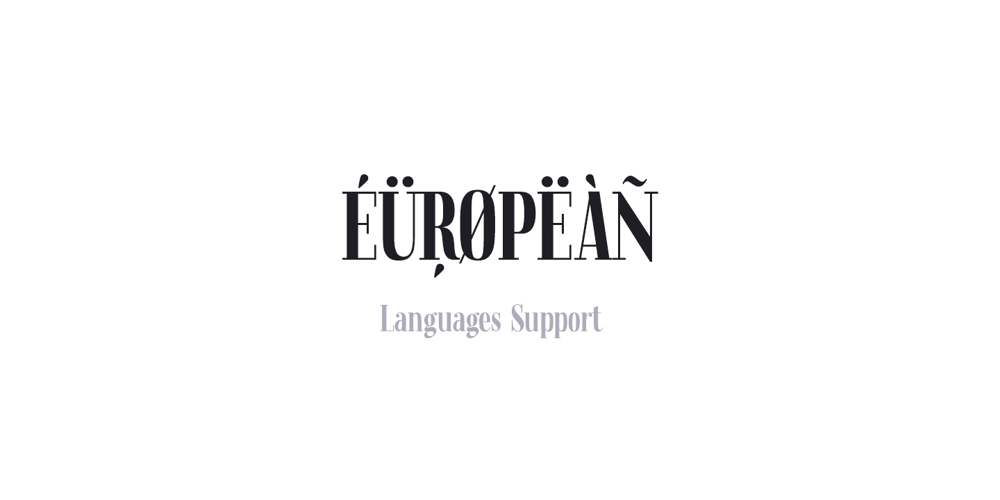
Fjørd Font Family was designed by Anton Didenko and published by Kavoon. Fjørd contains 1 styles and family package options. Fjørd Serif is a modern classic serif typeface with an individual approach in every single letter. Fjørd will perfect for many projects: fashion, magazines, logo, branding, photography, wedding invitations, quotes, blog header, poster, advertisements, etc. What’s Included? Bruno OTF & TTF Uppercase & lowercase letters, numbers, punctuation European Multilingual support Ligatures.